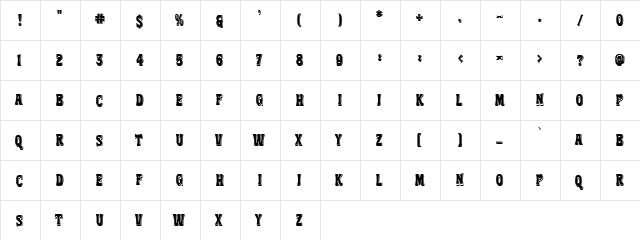
Complete Rocket Thunder Shadow Regular glyph index. Displaying only characters natively supported by Rocket Thunder Shadow Regular font.
Rocket Thunder Shadow is built around its visual character rather than neutral utility - its distinctive forms are designed to make an impression at display sizes.
Font Pairing: Pair with a clean neutral sans-serif for body copy to let Rocket Thunder Shadow's character lead without overwhelming the composition.
Pro Tip: Use Rocket Thunder Shadow exclusively at display sizes - it was designed to be seen, not read at length. Let a neutral companion handle body copy.